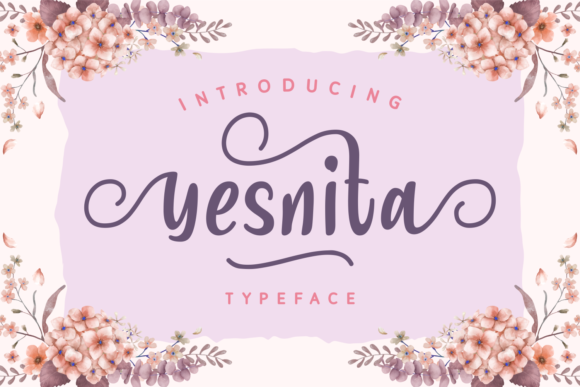
Unleash the Enchanting allure of Yesnita Font, a captivating script font that will add a touch of magic to your designs. Crafted with meticulous care by the talented Dani (7NTypes), Yesnita is a symphony of bold letters, each meticulously designed to convey a sense of elegance and playfulness. Its captivating curves and striking lines dance across the page, creating a visual masterpiece that will leave your audience in awe.
Immerse yourself in the world of Yesnita, where imagination and creativity know no bounds. Its versatility shines bright, making it the perfect choice for a myriad of projects. From posters that demand attention to invitations that exude charm, from book covers that captivate to designs that crave a touch of whimsy, Yesnita's versatility knows no limits.
Elevate your designs to new heights with Yesnita, the font that captures the essence of femininity and grace. Its bold letters, adorned with intricate details, command attention without overpowering the message you seek to convey. Experience the joy of creating designs that resonate with your audience, designs that leave a lasting impression and ignite their imaginations.
With Yesnita, every word you write becomes a work of art. Its playful nature invites you to explore the boundaries of creativity, to push the limits of what's possible. Explore the realm of endless possibilities, where your designs take center stage and leave an indelible mark on the world.